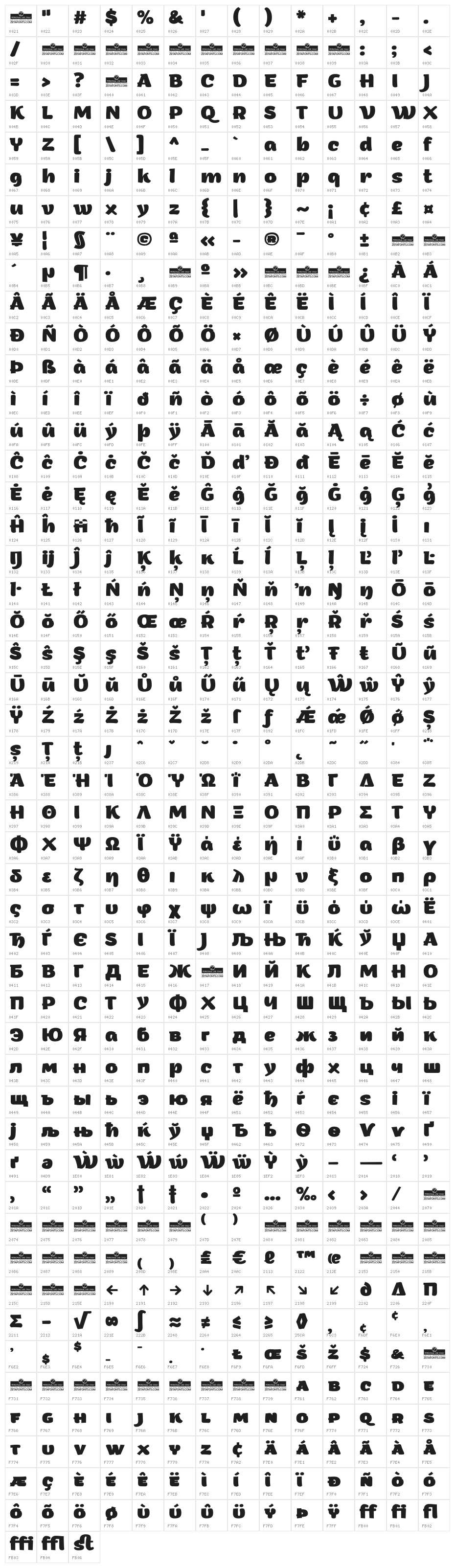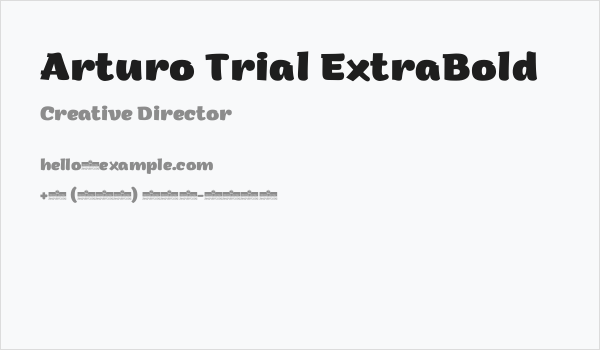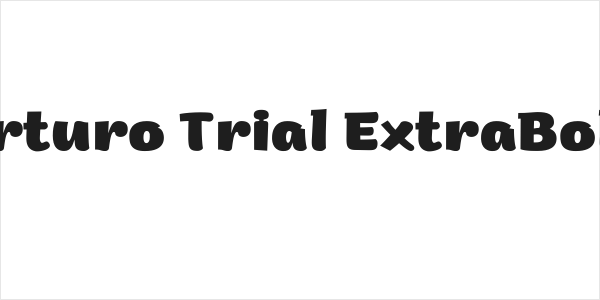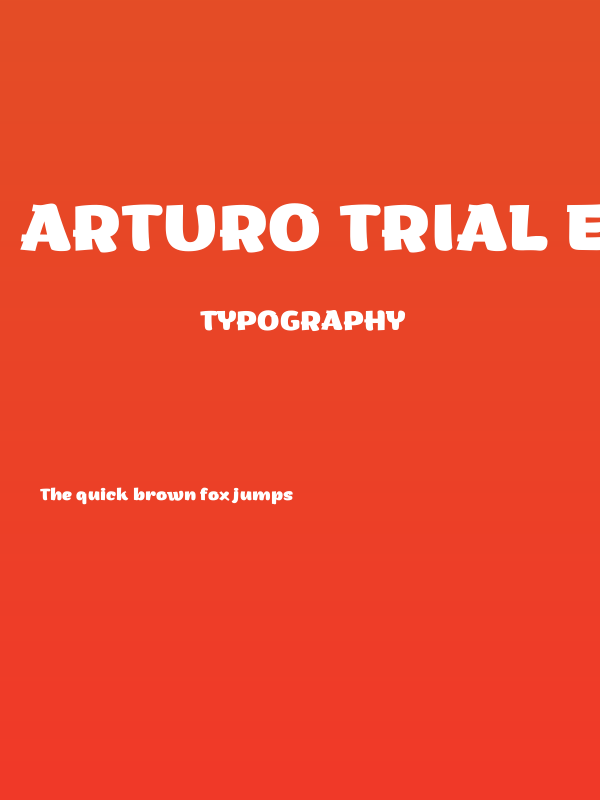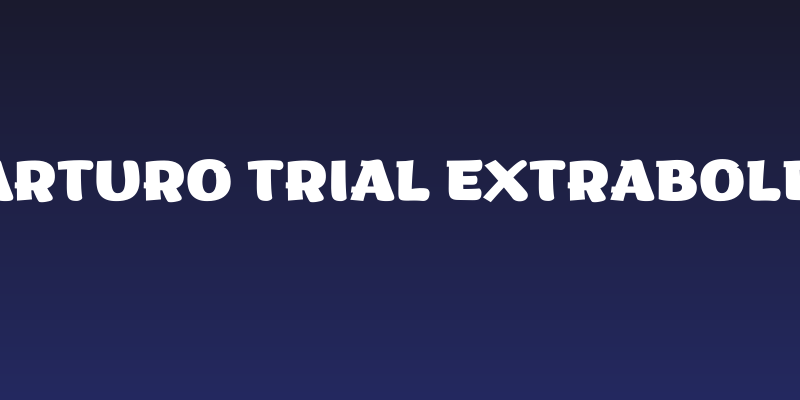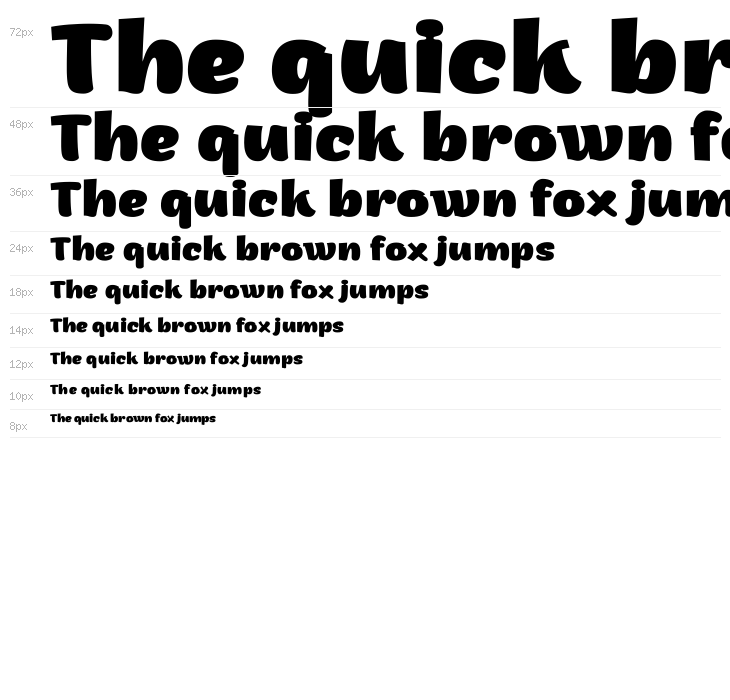
Arturo Trial ExtraBold Font
Arturo Trial ExtraBold Description
This font features a bold and playful design with thick, rounded strokes that give it a friendly and approachable appearance. The uppercase letters are robust and slightly condensed, while the lowercase letters maintain a consistent weight, enhancing readability. The characters exhibit a slight slant, adding a dynamic feel to the overall style. The numerals and special characters are designed to match the boldness of the alphabet, ensuring uniformity across all text elements. This font's unique style makes it suitable for creative and informal applications, where a touch of personality is desired.
| Overall Style | Playful, Modern |
| Proposed Projects | Ideal for children's books, playful branding, posters, and social media graphics. |